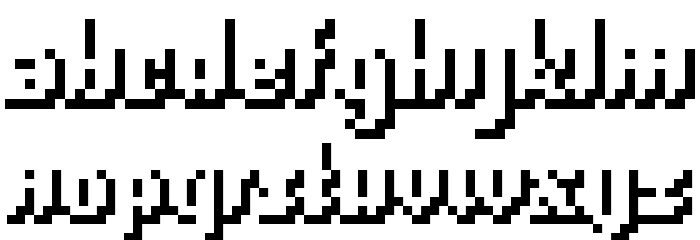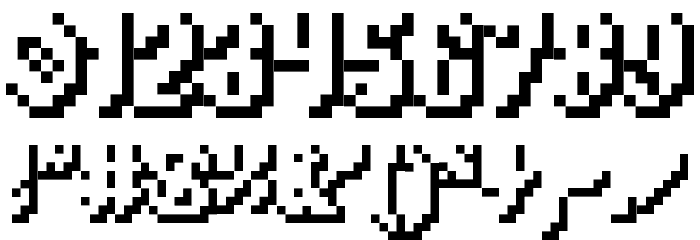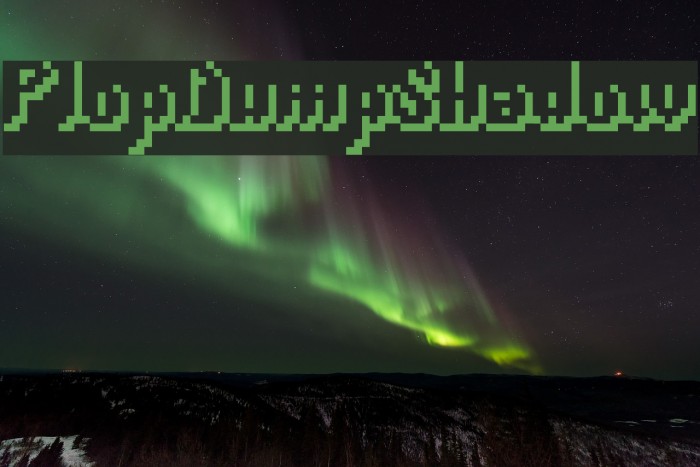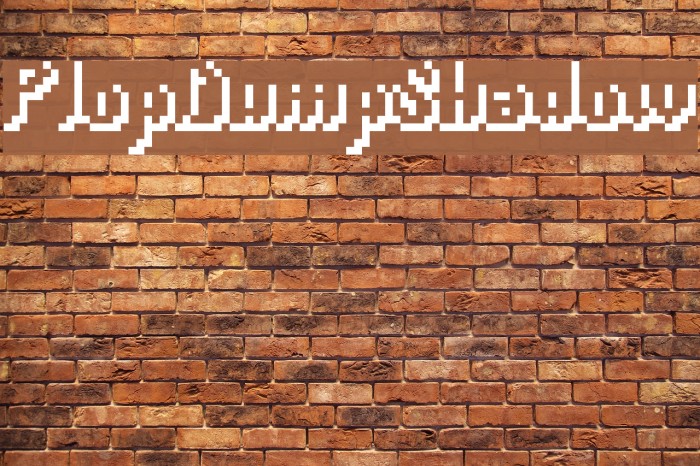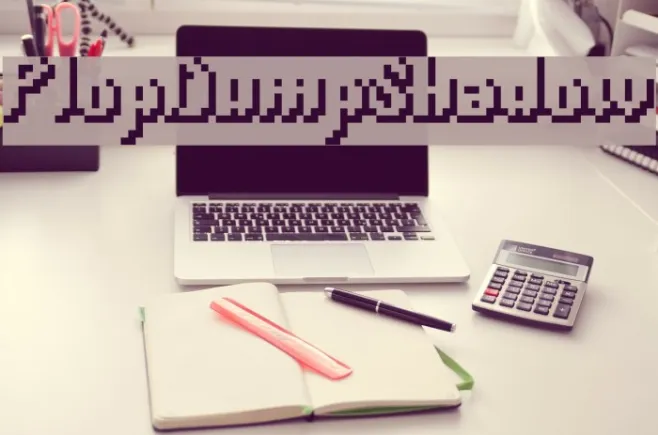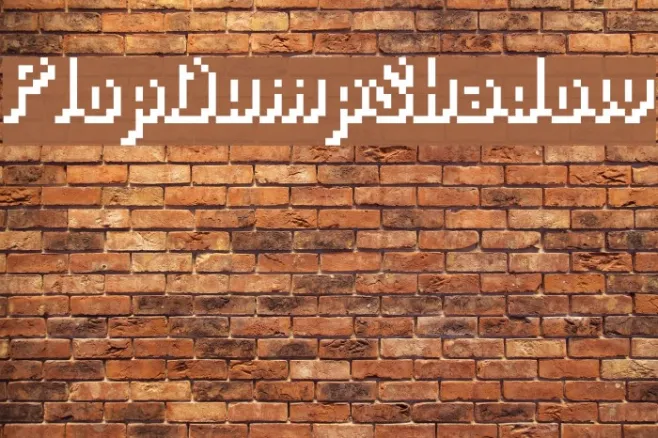
PlopDumpShadow Font
This font features a bold, pixelated style reminiscent of early digital and arcade aesthetics. Each character is constructed with a blocky, shadowed effect, giving it a three-dimensional appearance. The uppercase and lowercase letters maintain a consistent height, with the shadow adding depth and a playful touch. The numbers and special characters follow the same design principle, ensuring uniformity across all glyphs. This font's retro charm is perfect for projects that aim to evoke nostalgia or a vintage digital feel.
A bold, pixelated font with a shadow effect, ideal for retro digital themes.
- Proposed Projects: Video game graphics, retro-themed posters, digital art, and nostalgic branding.
- Overall Style: Vintage